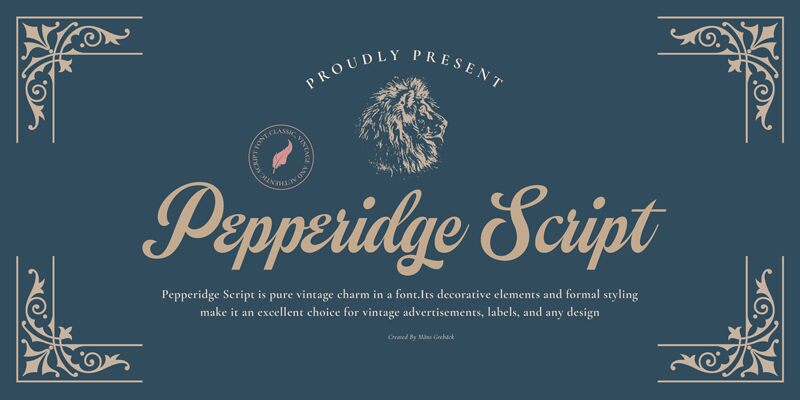
Pepperidge Script, crafted by the renowned Mans Greback, is a calligraphic treasure that brings the allure of vintage sophistication to any creative endeavor. Each stroke of this font is steeped in the nostalgic elegance reminiscent of a bygone era, making it perfect for projects that aim to capture the essence of history with a modern twist.
Innovative and intuitive, Pepperidge Script boasts advanced OpenType features offering an array of stylistic and contextual alternates, ligatures, and swashes-just type an underscore or more for custom underlines that add a personal touch. Designed to meet the needs of global communication, it provides extensive linguistic support across various Latin-based languages.
From branding to editorial design, wedding invitations to logo creation, Pepperidge Script infuses your work with its timeless charm while ensuring complete control and adaptability. Embrace its potential to elevate your designs with its unrivaled quality and versatility.